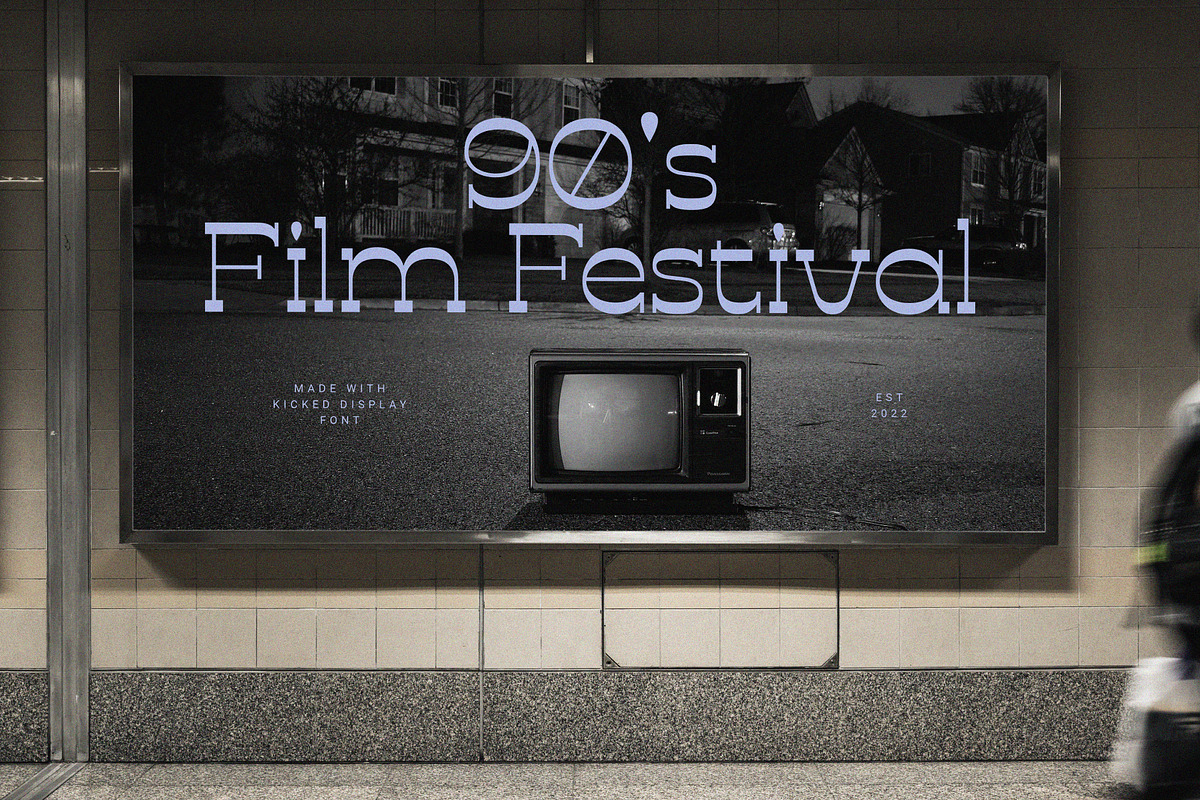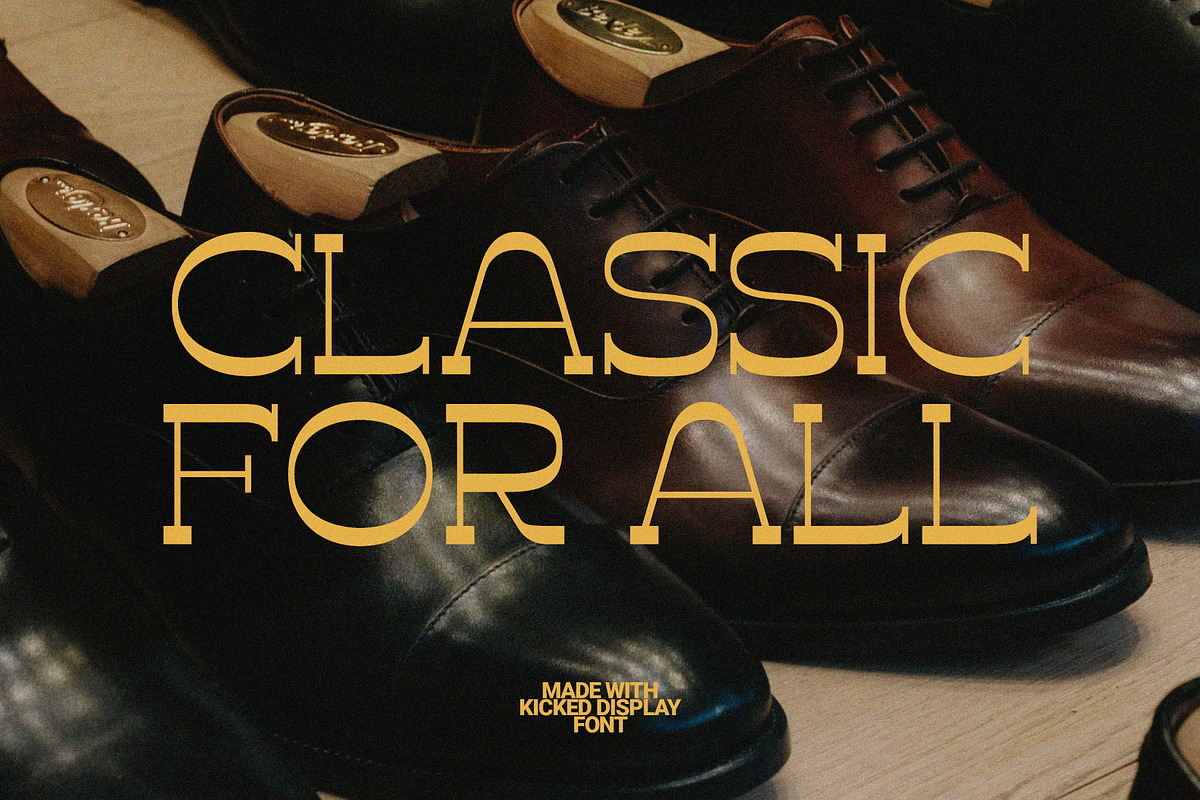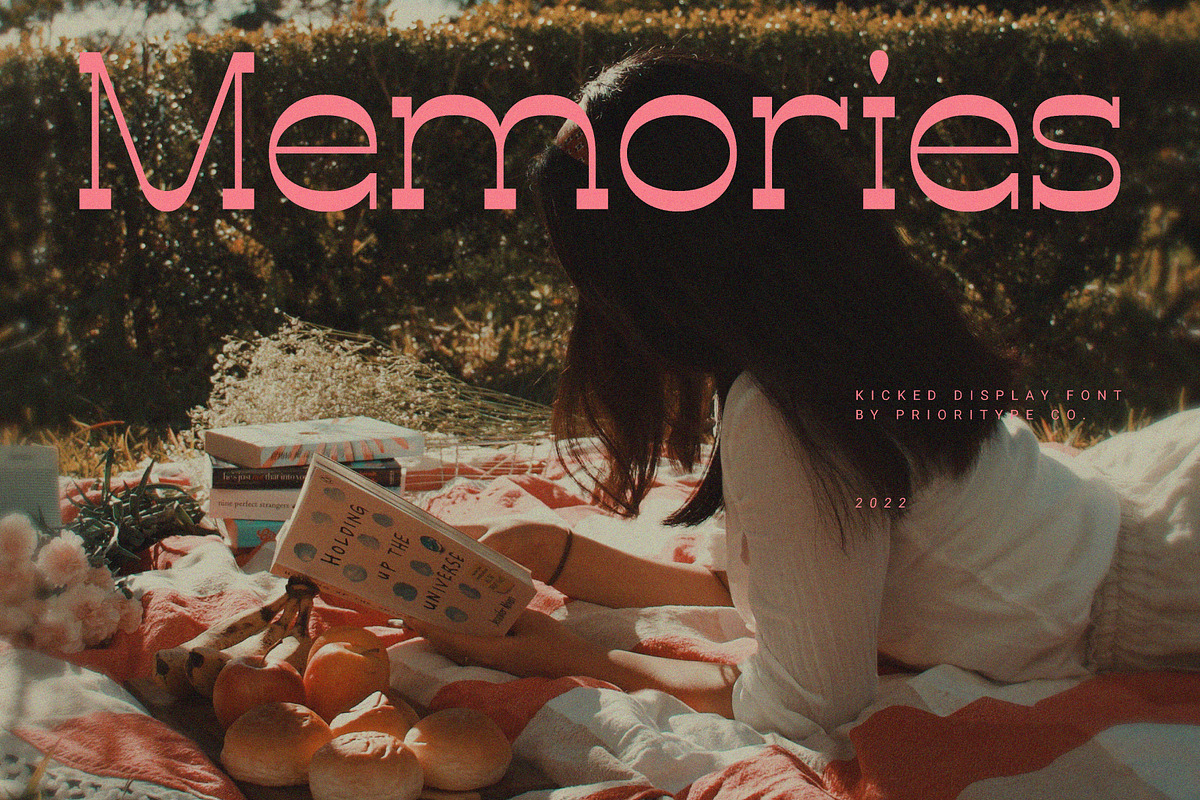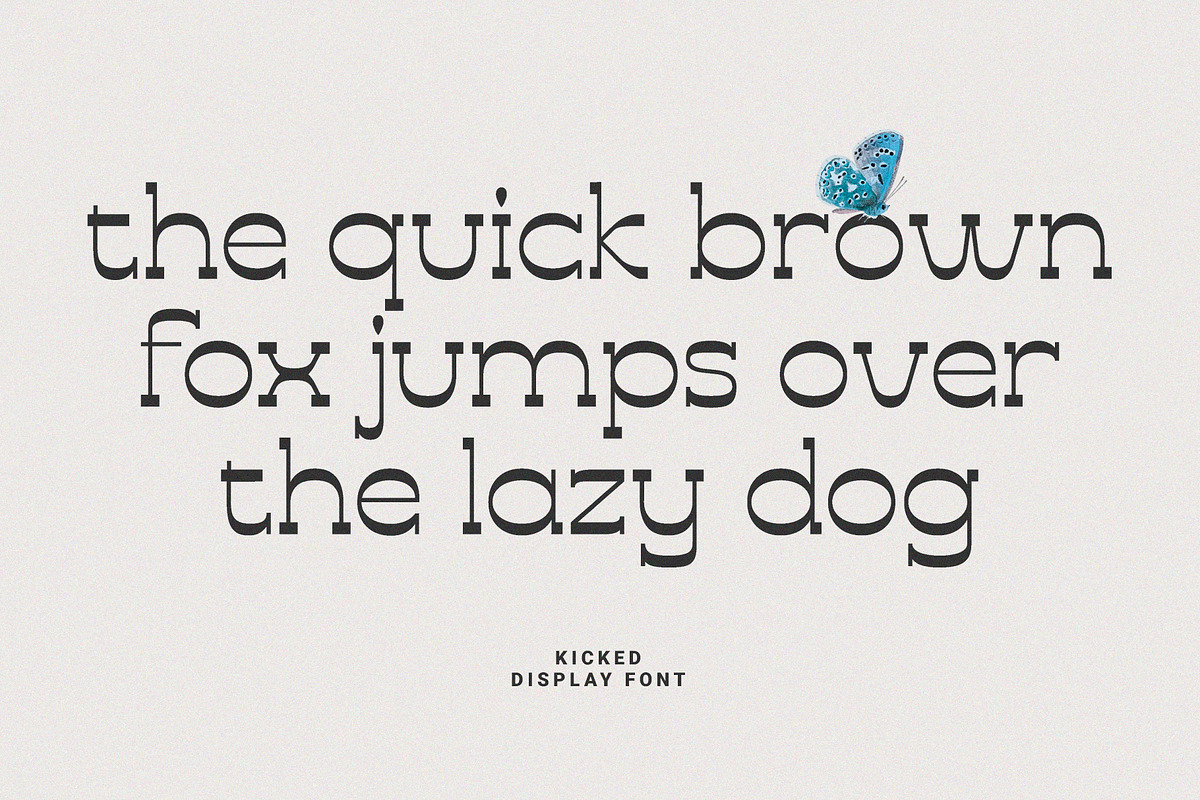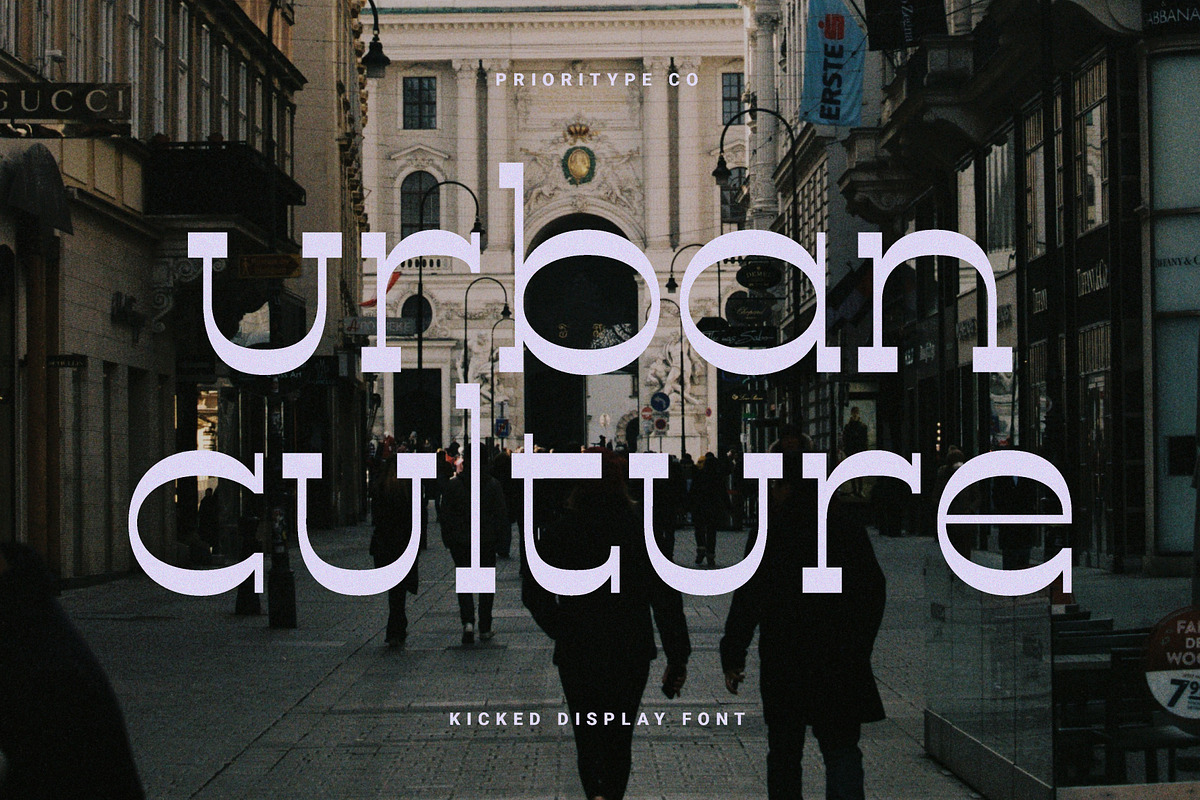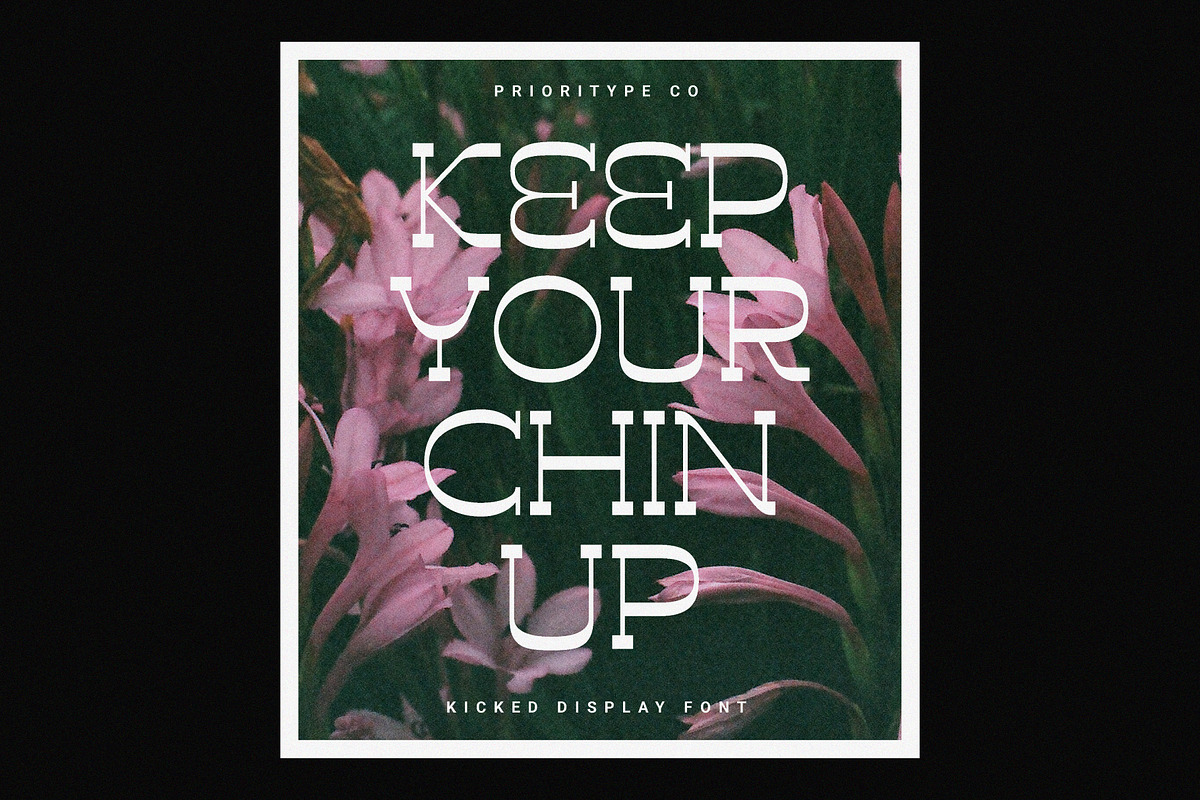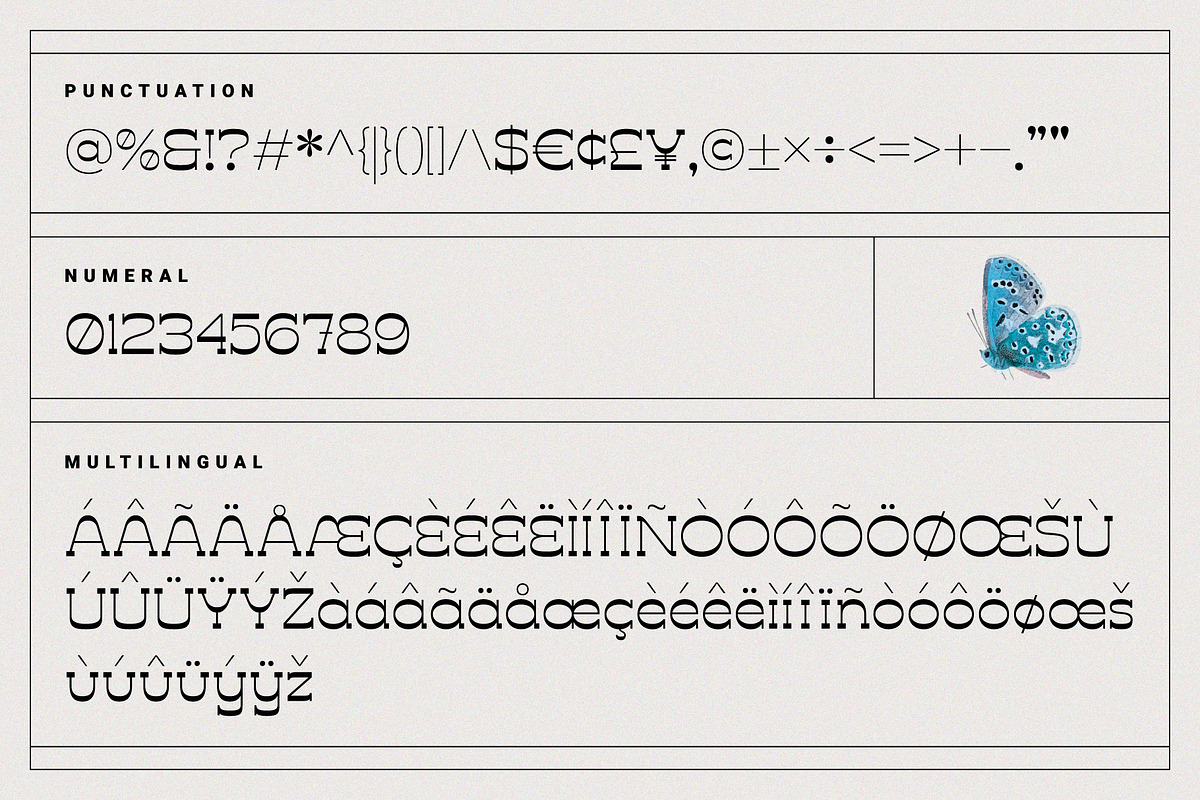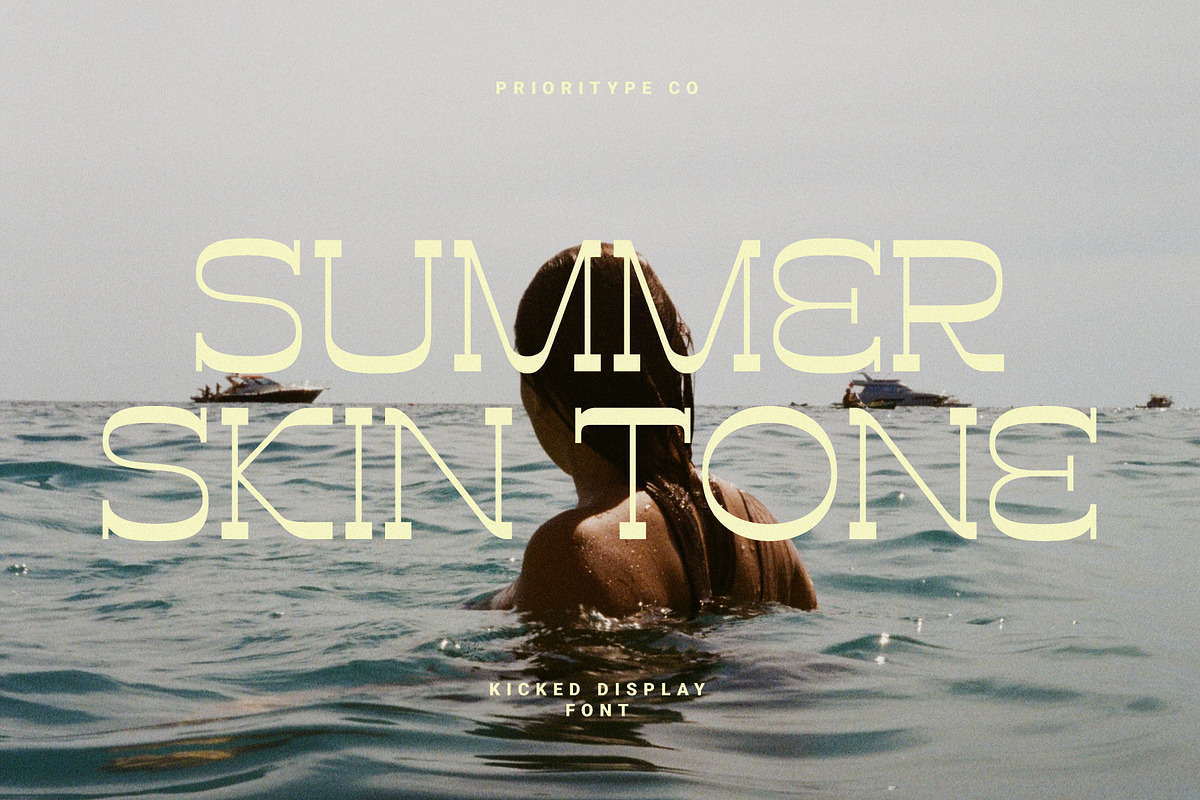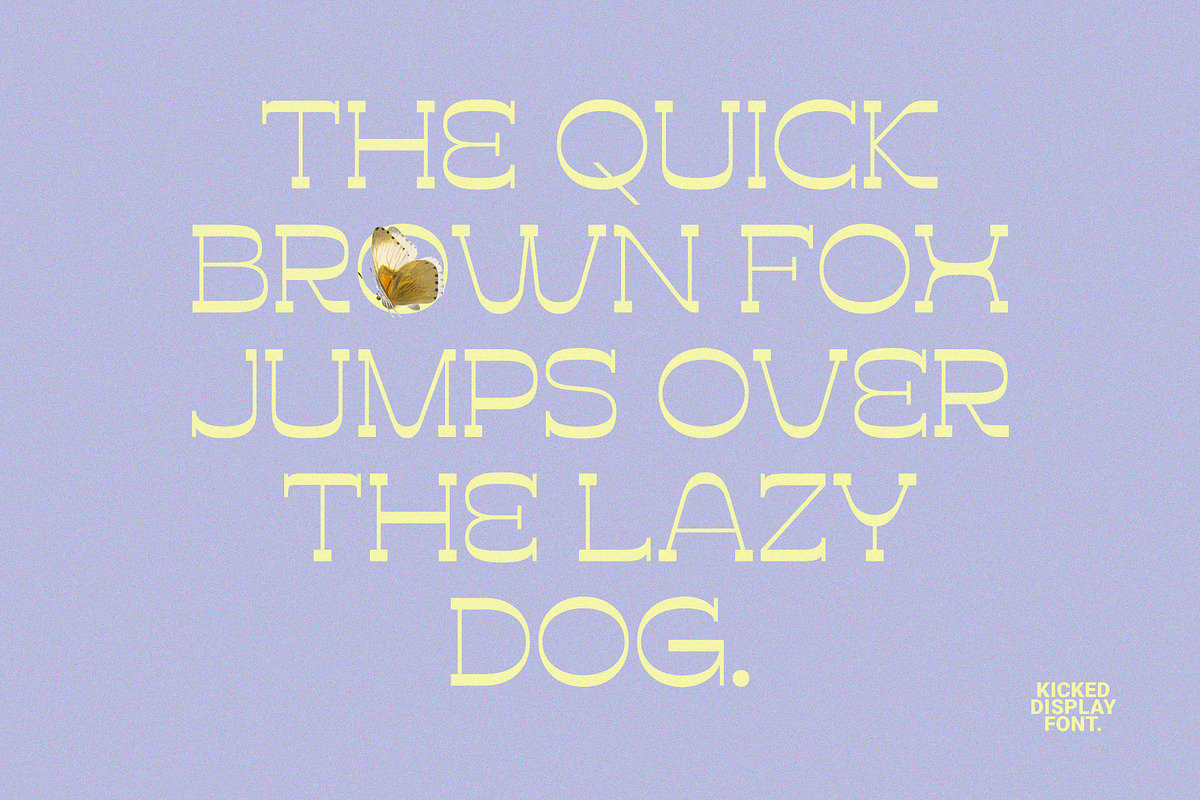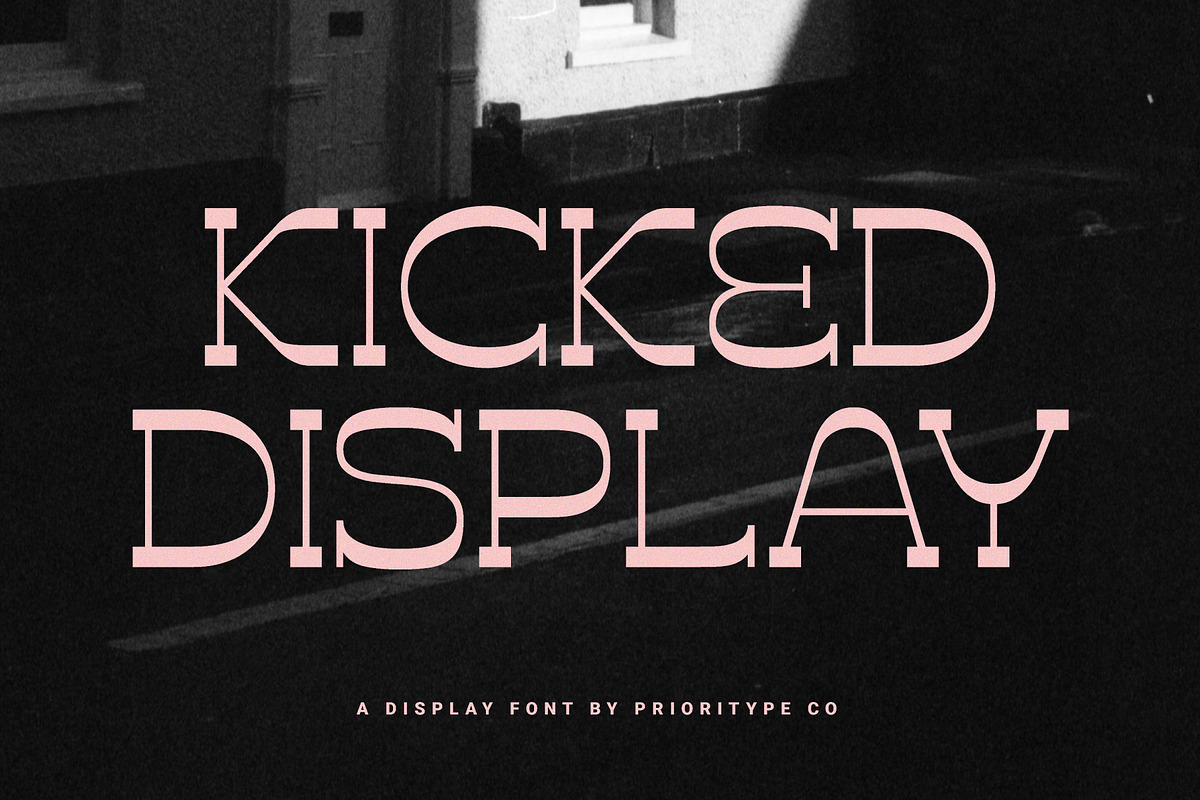
Kicked Display
Kicked Display Font by Prioritype Co.
"Kicked Display" is a display font with a unique and bold contrasting style. It is this bold and thin that makes this font memorable. Designing with pastel colors also looks more maximal with this font.
Features: Uppercase, Lowercase, Numeral, Punctuation & Multilingual.
Multilingual contained: Afrikaans, Albanian, Asu, Basque, Bemba, Bena, Breton, Catalan, Chiga, Cornish, Danish, Dutch, English, Estonian, Filipino, Finnish, French, Friulian, Galician, German, Gusii, Indonesian, Irish, Italian, Kabuverdianu, Kalenjin, Kinyarwanda, Luo, Luxembourgish, Luyia, Machame, Makhuwa-Meetto, Makonde, Malagasy, Manx, Morisyen, North Ndebele, Norwegian Bokmål, Norwegian Nynorsk, Nyankole, Oromo, Portuguese, Quechua, Romansh, Rombo, Rundi, Rwa, Samburu, Sango, Sangu, Scottish Gaelic, Sena, Shambala, Shona, Soga, Somali, Spanish, Swahili, Swedish, Swiss German, Taita, Teso, Uzbek (Latin), Volapük, Vunjo, Zulu.